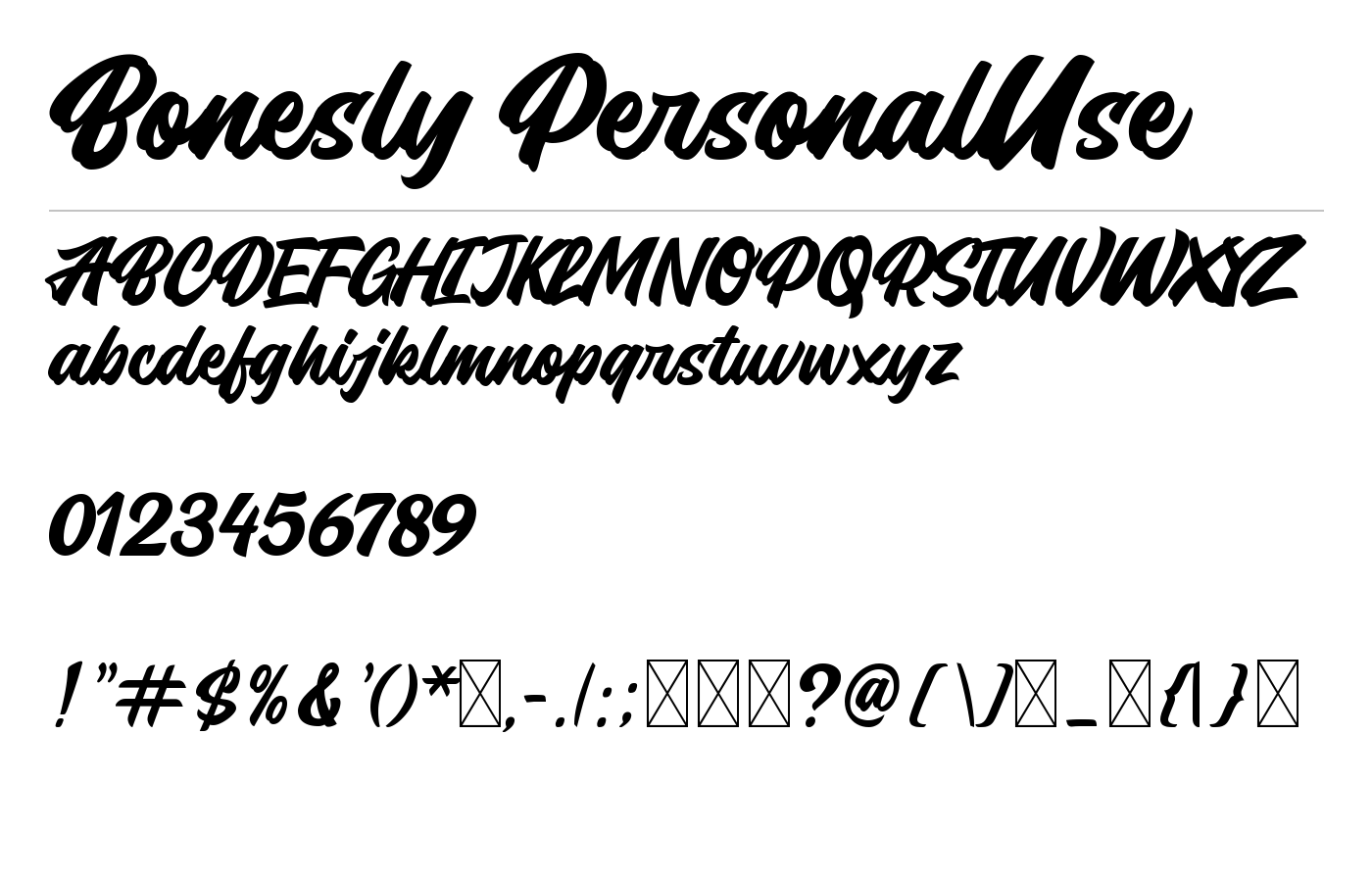
Bonesly PersonalUse is a bold, brush script font with a casual and energetic feel, featuring smooth, flowing strokes and a slightly condensed width. Its lively, hand-painted style makes it ideal for creating eye-catching logos, posters, and branding that want to convey friendliness and creativity. This font works well for both headlines and display use, adding a personal, dynamic touch to any design.
Bonesly PersonalUse Font
About Bonesly PersonalUse Font